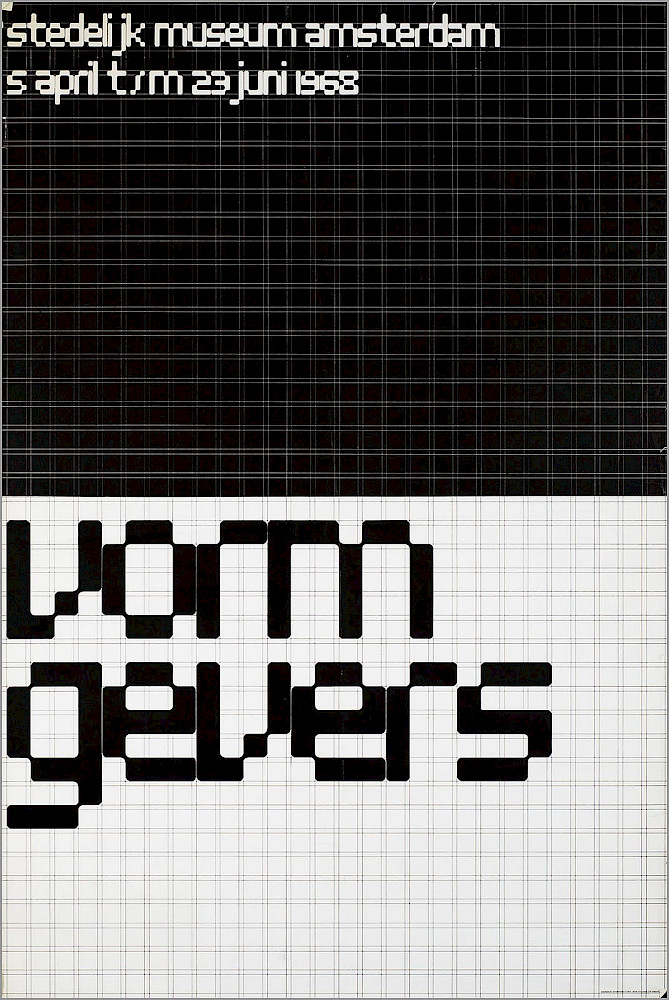
The Dutch designer Wim Crouwel pioneered the application of systematic design in the Netherlands during the 1950s and 1960s. His identity for the Vormgevers exhibition at the Stedelijk Museum in Amsterdam in 1968 used an exposed grid in the layout of posters and catalogs, which was also the basis of the lettering.